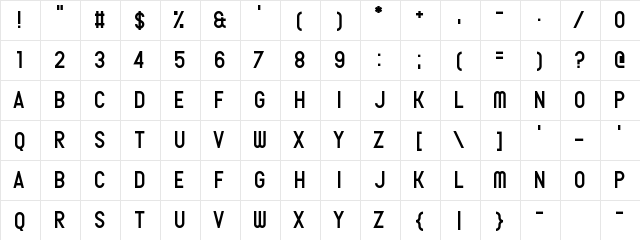
Monster Twenty Regular
| Designer | Allison James |
Design Context for Monster Twenty Typeface
Monster Twenty takes a measured approach to typography — its balanced proportions and neutral character make it a reliable workhorse for both digital and print work.
Pro Tip: Use Monster Twenty in both headline and body roles to test its range before committing to a single application.